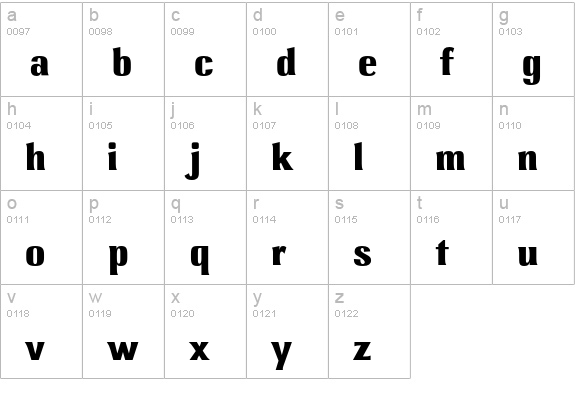
Lennox ITC Std Bold Font Details
Lennox ITC Std Bold is a strong, high-contrast variant in the Lennox typeface family \xE2\x80\x94 well suited to headlines, attention-grabbing titles, and strong calls-to-action.
Lennox ITC Std Bold font is a captivating and bold typeface that exudes confidence and professionalism. Its strong and commanding presence makes it perfect for headlines, titles, and branding materials. The thick strokes and sharp edges of this font give it a modern and contemporary feel, while still maintaining a timeless elegance. The versatility of Lennox ITC Std Bold font is truly impressive, as it seamlessly transitions between different design projects. Whether you're creating eye-catching advertisements, striking posters, or impactful logos, this font will effortlessly enhance your designs and make them stand out. What sets Lennox ITC Std Bold font apart is not only its exceptional design, but also the fact that it is available for free. Yes, that's right – you can freely download this remarkable font at FontsMarket.com. This means that you can instantly elevate your design projects without any additional cost. So why wait? Take advantage of this incredible opportunity and add Lennox ITC Std Bold font to your collection today. With its bold and captivating style, this font will undoubtedly leave a lasting impression and make your designs shine.